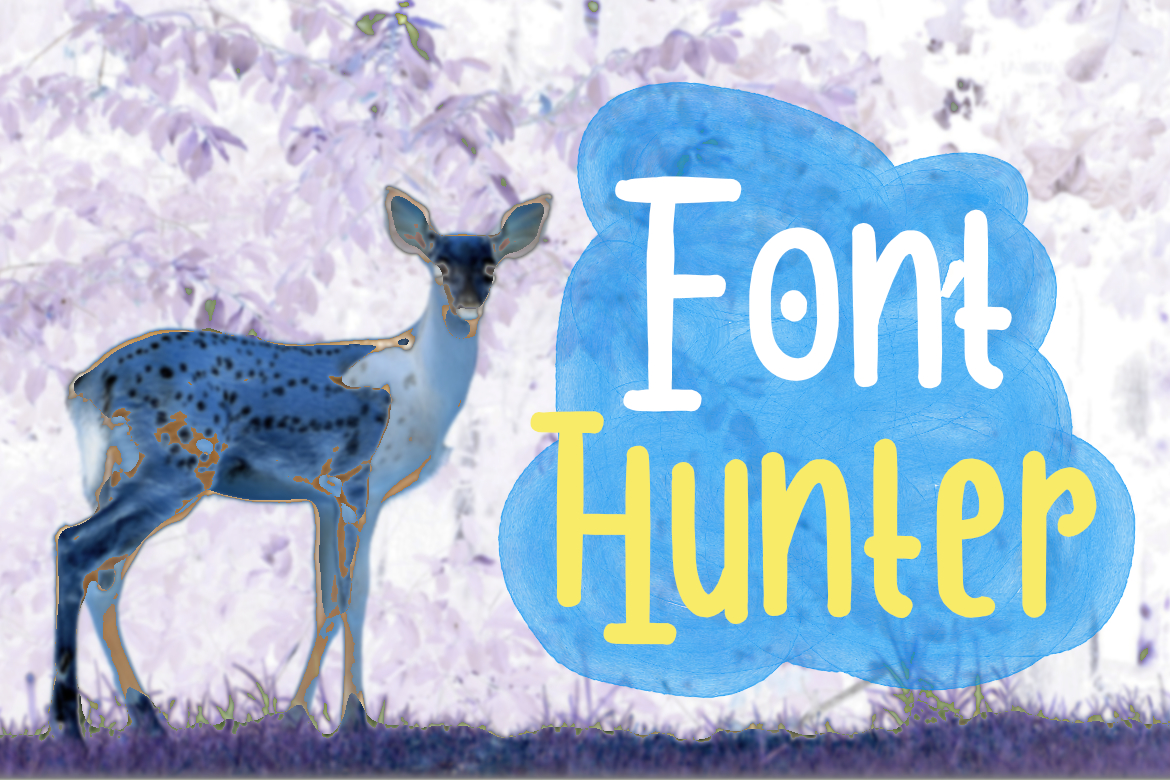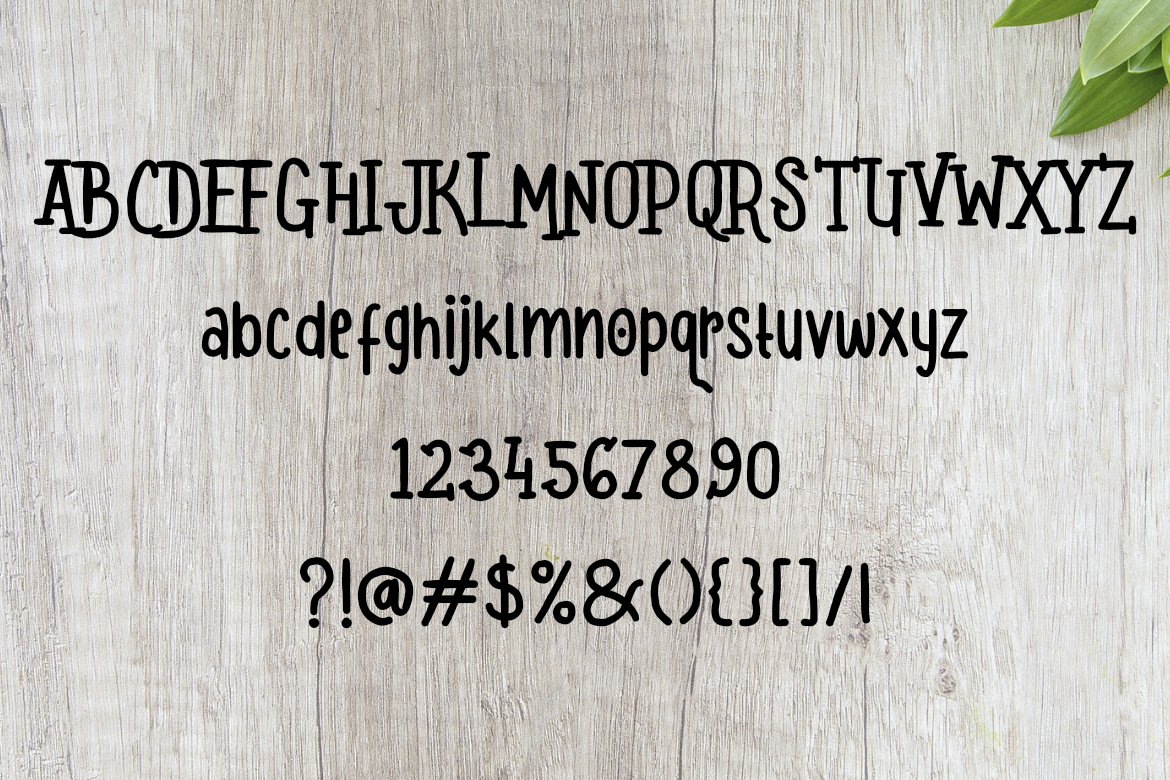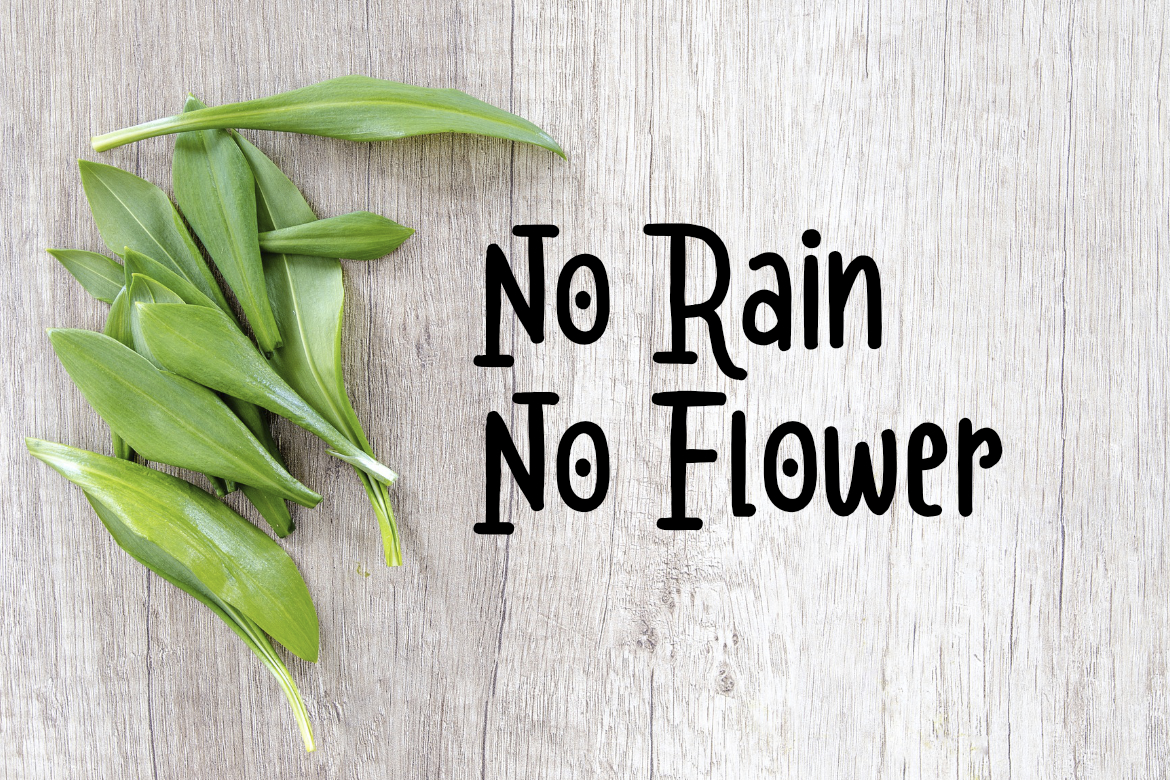
Font Hunter
Font Hunter: A Fun and Edgy Slab Serif Font
Font Hunter is a distinctive slab serif font that combines playfulness with a touch of edginess. This unique typeface offers designers a versatile tool for creating eye-catching typography across various design projects.
Key Features of Font Hunter
• Fun Design: Incorporates playful elements for a lively typographic appearance
• Edgy Character: Adds a subtle edge to the traditional slab serif structure
• Embellished Characters: Features unique embellishments on certain characters for added visual interest
• Versatile Application: Suitable for a wide range of type-based design options
Ideal Uses for Font Hunter
Font Hunter’s unique characteristics make it particularly well-suited for:
• Eye-catching headlines and titles
• Branding projects requiring a fun yet distinctive look
• Poster and advertisement designs
• Editorial layouts seeking a playful typographic voice
• Social media graphics and digital content
Comparison with Other Slab Serif Fonts
While Font Hunter shares the bold characteristics of other slab serifs like Tecnica Slab Family, its playful and edgy nature sets it apart. Unlike more traditional slab serifs such as Osgood Slab, Font Hunter offers a more contemporary and lively approach to typography.
When incorporating Font Hunter into your designs, consider the following tips:
• Use it for headlines or short blocks of text to showcase its unique embellishments
• Pair with simpler sans-serif fonts for body text to create contrast
• Experiment with different sizes to highlight the font’s playful details
• Consider using it in projects where you want to combine fun and edgy aesthetics
Font Hunter is an excellent choice for designers looking to add a touch of playfulness and edge to their work. Its unique blend of slab serif structure and fun embellishments makes it stand out in the world of typography. Whether you’re working on logo designs, editorial layouts, or creating eye-catching poster designs, Font Hunter offers the perfect combination of fun and functionality.
Explore how Font Hunter can bring a lively and distinctive edge to your design projects. From branding to editorial design, this font provides the tools to create impactful and memorable typography that stands out in various design contexts.